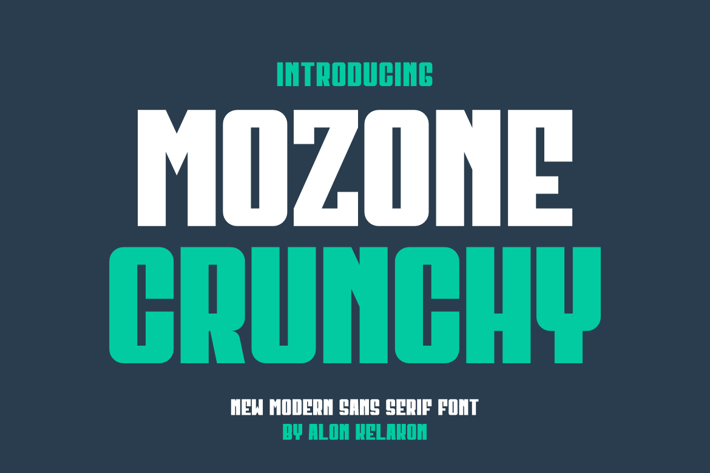
Mozone Crunchy Font
Mozone Crunchy Font is unique . Ready to use for your design like labeling, clothing, movie sceen, poster, movie title, gigs, album covers, logos, and much more.